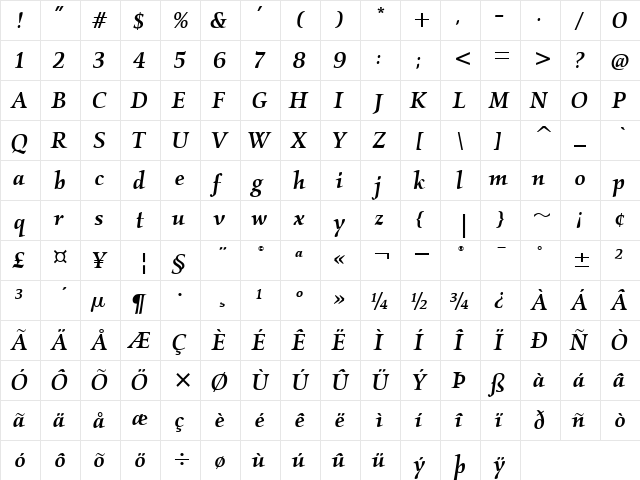
KallosMdITC TT MediumItalic
KallosMdITC TT takes a measured approach to typography — its balanced proportions and neutral character make it a reliable workhorse for both digital and print work. Its italic angle brings a sense of urgency and motion to the letterforms.